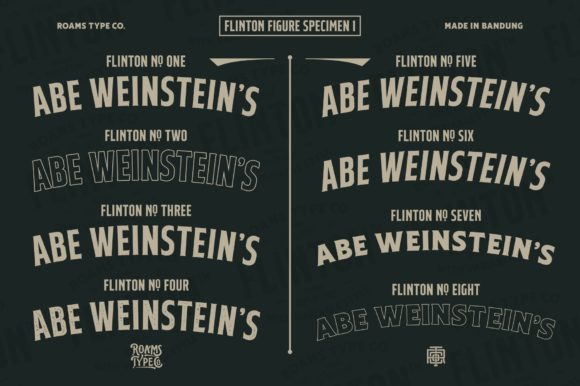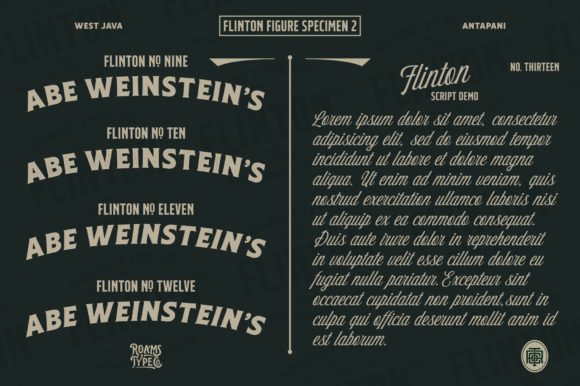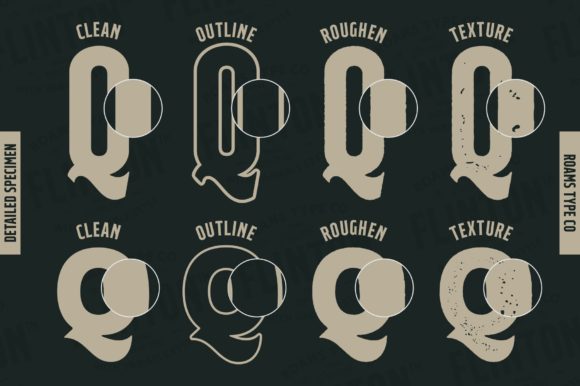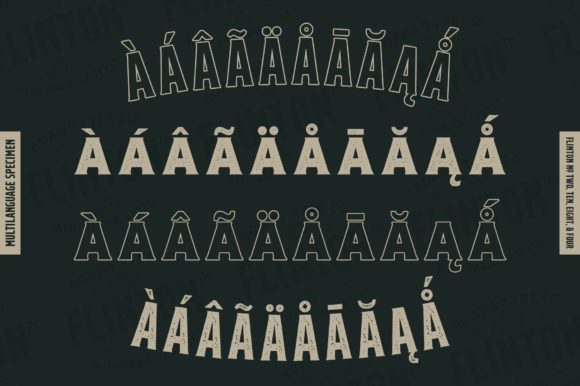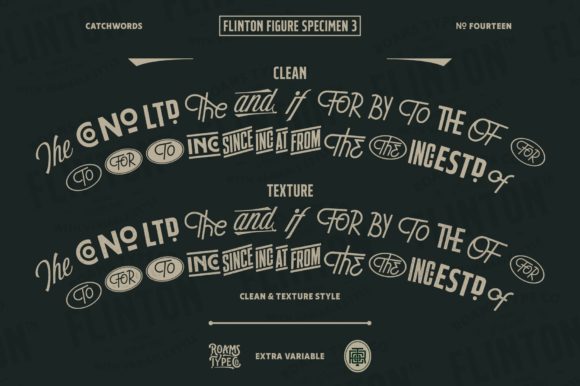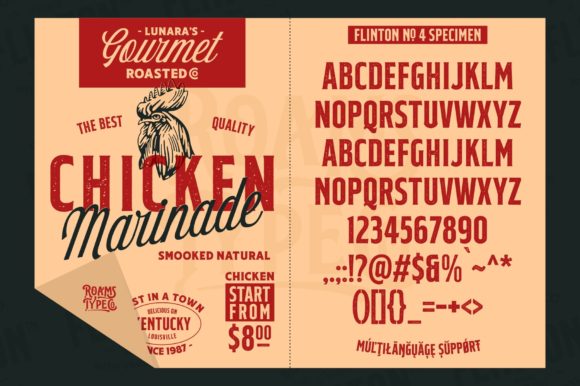
Introducing Flinton Family Font: A Timeless Vintage Typeface
Are you a designer or crafter looking for a font that exudes a classic, vintage vibe? Look no further than the Flinton Family Font. This versatile font family includes both serif and script variants, making it perfect for a wide range of design projects that incorporate vintage concepts.
What is Flinton Family Font?
Flinton is a basic vintage-looking font family that includes serif and script with several variants. The font is designed to evoke a sense of nostalgia and timelessness, making it ideal for designs that require a classic, retro feel. Whether you’re creating logotypes, posters, merchandise designs, or magazines, Flinton Family Font is the perfect choice.
Key Features of Flinton Family Font
• Vintage-inspired design: Flinton Family Font features a classic, vintage design that is reminiscent of traditional printing.
• Serif and script variants: The font family includes both serif and script variants, giving you flexibility and versatility in your designs.
• Multiple variants: Flinton Family Font comes with several variants, allowing you to experiment with different styles and effects.
• Suitable for various design projects: The font is perfect for logotypes, posters, merchandise designs, magazines, and more.
Why Choose Flinton Family Font?
There are many reasons why Flinton Family Font stands out from other font families. Here are a few:
• Unique and distinctive: Flinton Family Font has a unique and distinctive style that sets it apart from other fonts.
• Highly versatile: The font family includes multiple variants, making it suitable for a wide range of design projects.
• Easy to read: Despite its vintage-inspired design, Flinton Family Font is highly legible and easy to read.
• Perfect for vintage-themed designs: If you’re looking to create designs that evoke a sense of nostalgia and timelessness, Flinton Family Font is the perfect choice.
How to Use Flinton Family Font in Your Designs
Using Flinton Family Font in your designs is easy. Here are a few tips to get you started:
• Pair with other fonts: Experiment with pairing Flinton Family Font with other fonts to create interesting and unique typography.
• Use for headlines and body text: Flinton Family Font is suitable for both headlines and body text, making it a versatile addition to your design toolkit.
• Experiment with colors and textures: Add depth and interest to your designs by experimenting with different colors and textures.
In conclusion, Flinton Family Font is a versatile and highly effective font family that is perfect for designers and crafters looking to create vintage-themed designs. With its classic, vintage-inspired design, multiple variants, and high legibility, Flinton Family Font is the perfect choice for a wide range of design projects. Whether you’re creating logotypes, posters, merchandise designs, or magazines, Flinton Family Font is sure to become a valuable addition to your design toolkit.